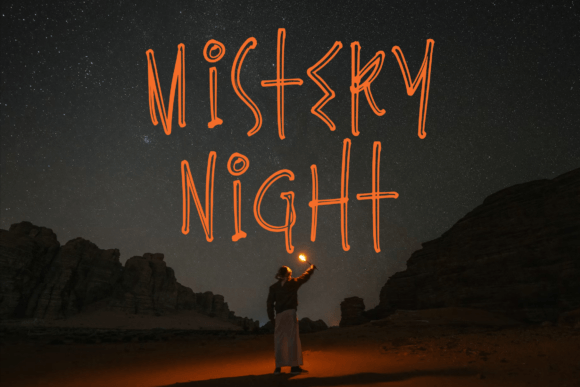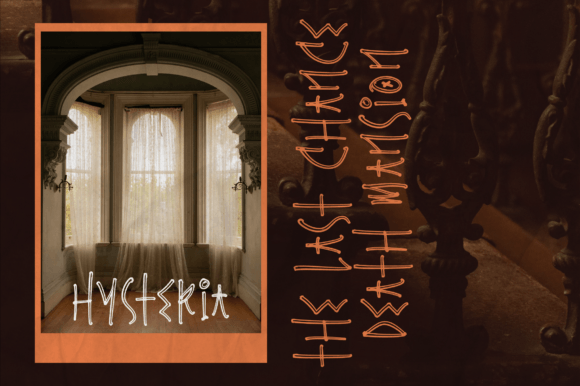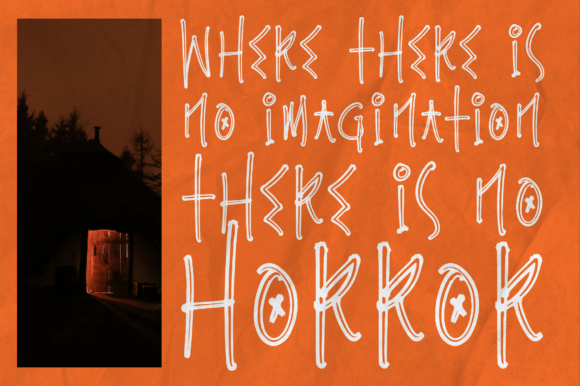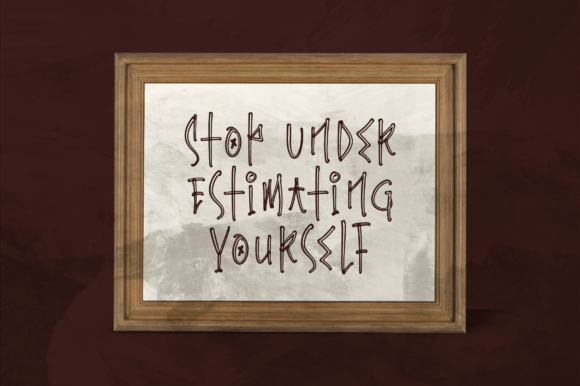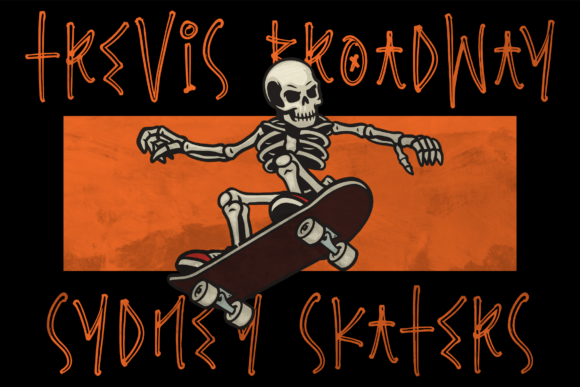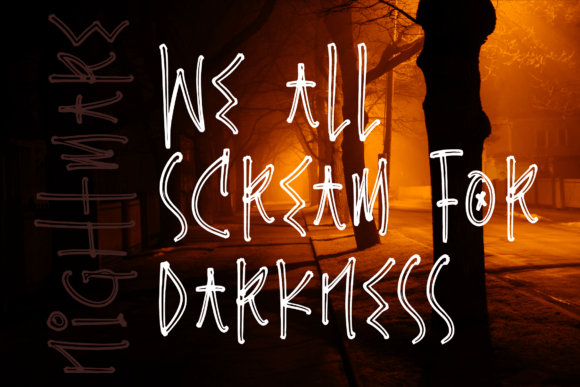
Discover the Eerie Elegance of Ghost Town Font
Are you on the hunt for a font that will add a touch of spookiness and sophistication to your design projects? Look no further than the Ghost Town Font, a stunning display font that is perfect for a wide range of applications. From logos and branding projects to homeware designs, product packaging, and more, this versatile font is sure to cast a spell on your audience.
What is Ghost Town Font?
Ghost Town Font is a unique and captivating display font that is designed to evoke the eerie and mysterious atmosphere of a deserted town. With its bold and expressive letters, this font is ideal for designers and crafters who want to add a touch of whimsy and intrigue to their work. Whether you’re creating a logo, a poster, or a product design, Ghost Town Font is sure to make your project stand out from the crowd.
What Makes Ghost Town Font So Special?
So, what sets Ghost Town Font apart from other fonts on the market? Here are just a few of its standout features:
- Spooky yet elegant: Ghost Town Font has a spooky and mysterious vibe that’s perfect for Halloween-themed designs, but it’s also elegant and sophisticated enough to use for more refined projects.
- Highly versatile: This font can be used for a wide range of applications, from logos and branding projects to homeware designs, product packaging, and more.
- Easy to read: Despite its bold and expressive letters, Ghost Town Font is surprisingly easy to read, making it perfect for designs that require a clear and concise message.
- Unique and eye-catching: With its distinctive and eye-catching letters, Ghost Town Font is sure to grab attention and leave a lasting impression.
Uses for Ghost Town Font
So, what can you use Ghost Town Font for? The possibilities are endless! Here are a few ideas to get you started:
- Logos and branding projects: Create a memorable and impactful logo that will set your brand apart from the competition.
- Homeware designs: Add a touch of spooky sophistication to your homeware designs, from mugs and t-shirts to posters and wall art.
- Product packaging: Make your product packaging stand out with a bold and eye-catching font that’s sure to grab attention.
- Quotes and posters: Create inspiring and thought-provoking quotes and posters that will leave a lasting impression.
- Shopping bags and labels: Add a touch of elegance and sophistication to your shopping bags and labels.
- T-shirts and apparel: Create unique and eye-catching t-shirts and apparel that will make your customers stand out from the crowd.
- Book covers and invitations: Create a memorable and impactful book cover or invitation that will set the tone for your project.
Tips for Using Ghost Town Font
Here are a few tips for getting the most out of Ghost Town Font:
- Experiment with different colors: Ghost Town Font looks great in a range of colors, from bold and bright to muted and pastel.
- Play with font sizes: Experiment with different font sizes to create visual interest and hierarchy.
- Combine with other fonts: Pair Ghost Town Font with other fonts to create a unique and eye-catching combination.
- Use for headlines and titles: Ghost Town Font is perfect for headlines and titles, where its bold and expressive letters can really make an impact.
In conclusion, Ghost Town Font is a unique and captivating display font that is perfect for designers and crafters who want to add a touch of spooky sophistication to their work. With its bold and expressive letters, this font is highly versatile and can be used for a wide range of applications. Whether you’re creating a logo, a poster, or a product design, Ghost Town Font is sure to make your project stand out from the crowd.